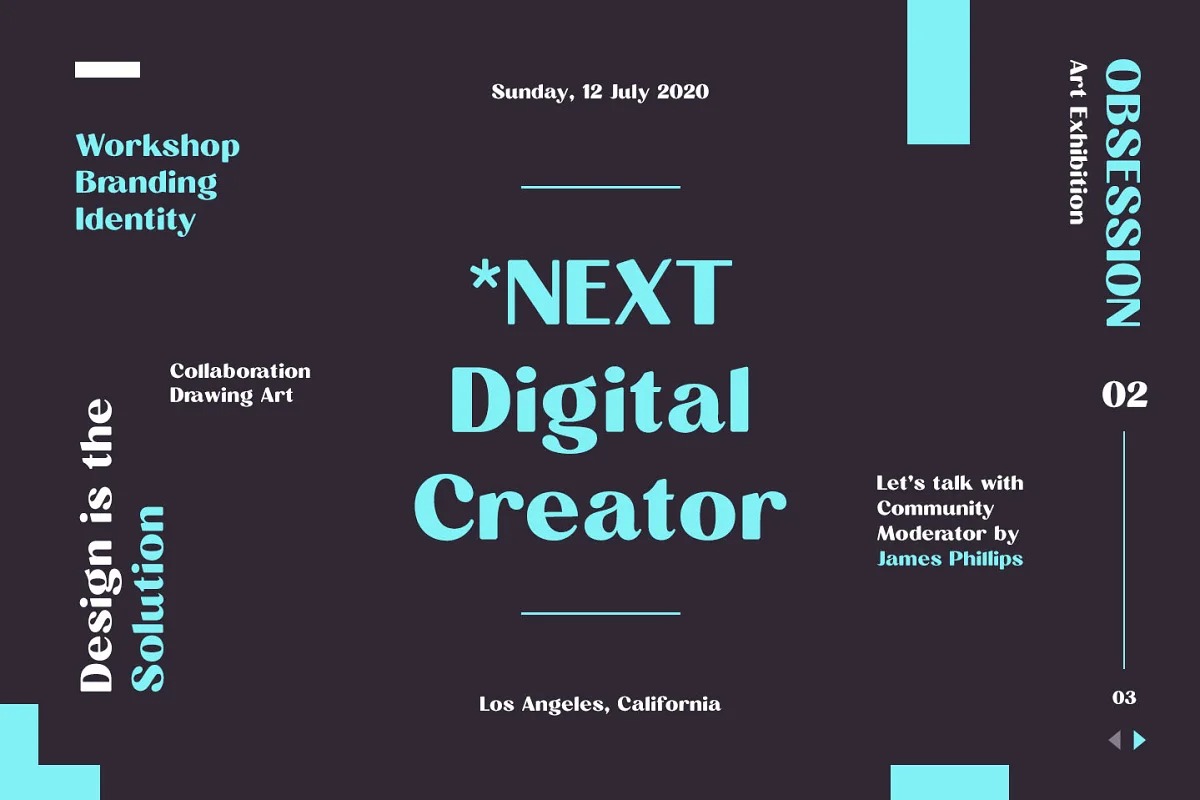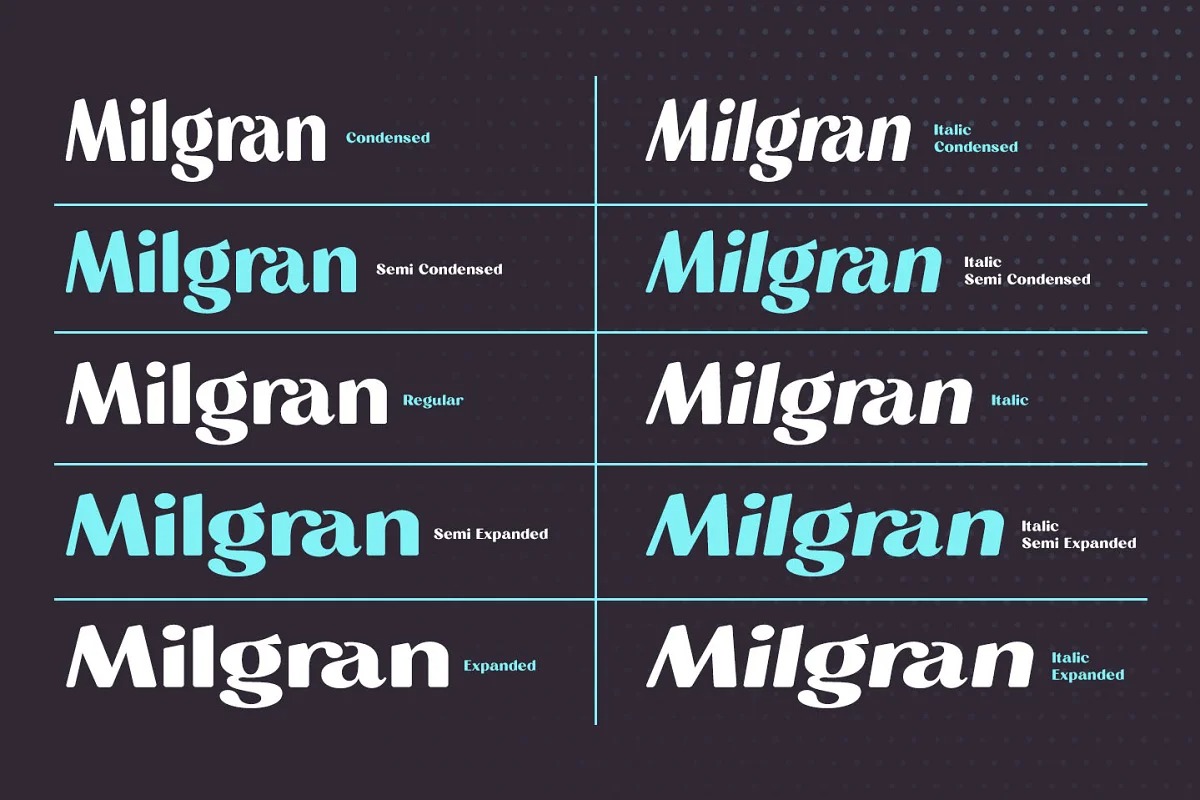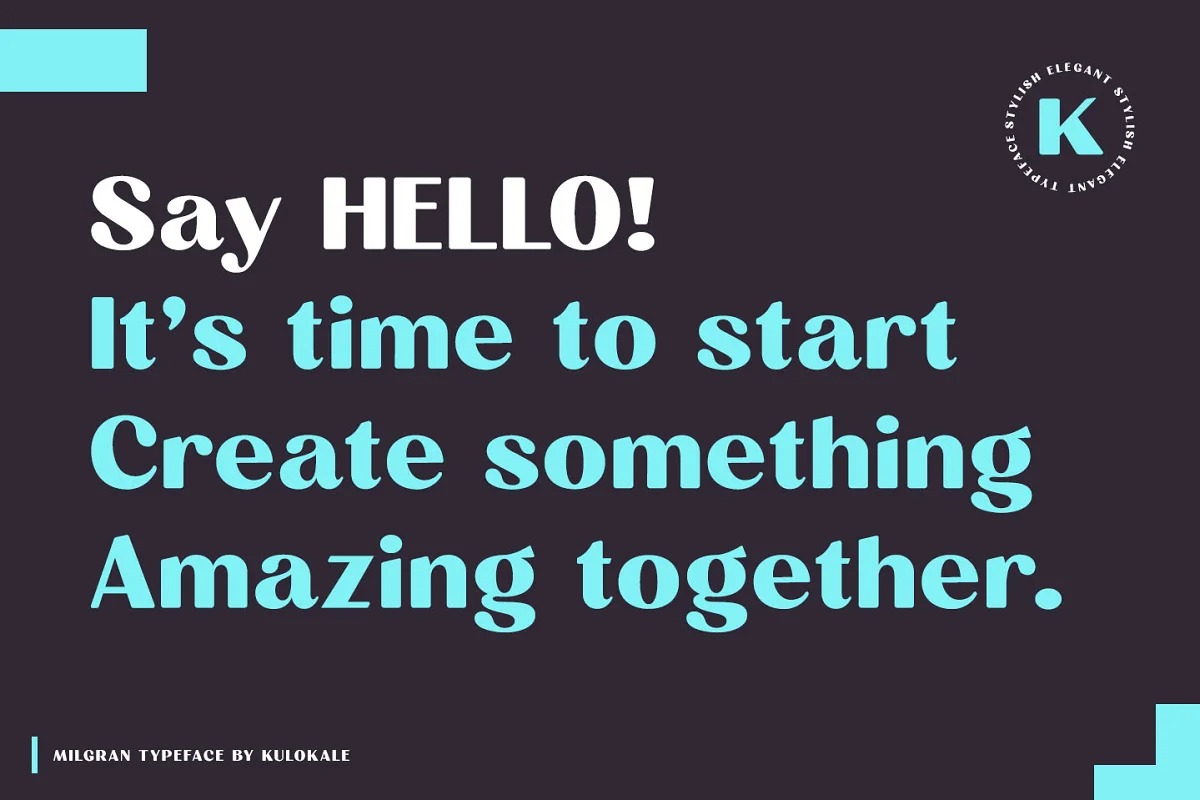
Milgran Sans Serif Font
This is a classic bold sans serif typeface crafted & designed by Kulokale. Milgran is well-suited for advertising, branding, logotypes, packaging, titles, headlines and editorial design. This font is PUA encoded which means you can access all of the glyphs and swashes with ease!